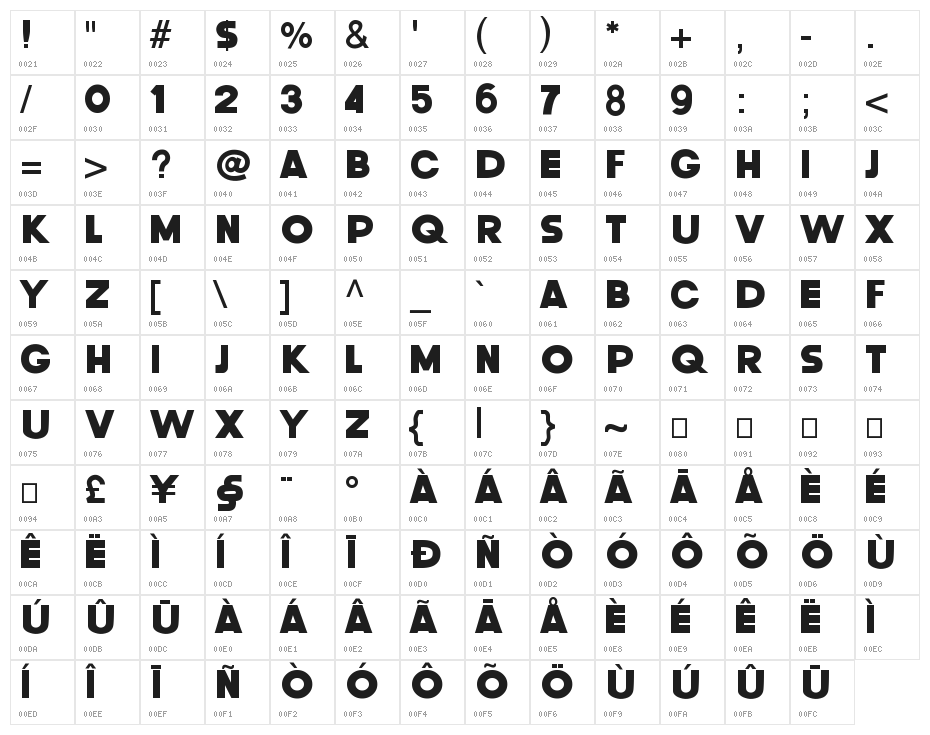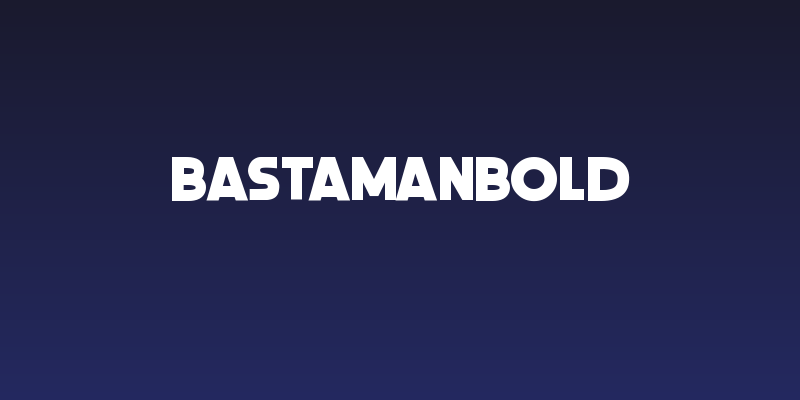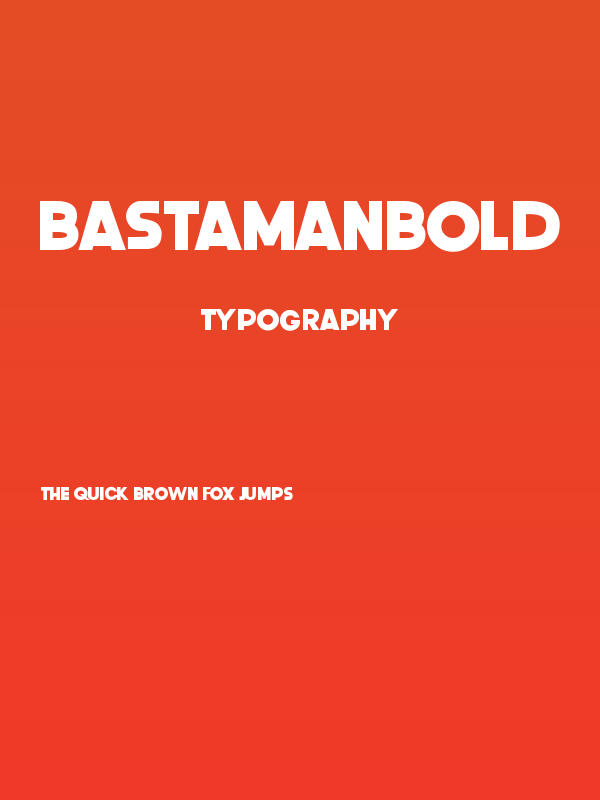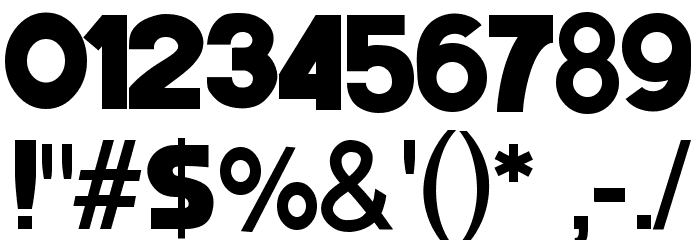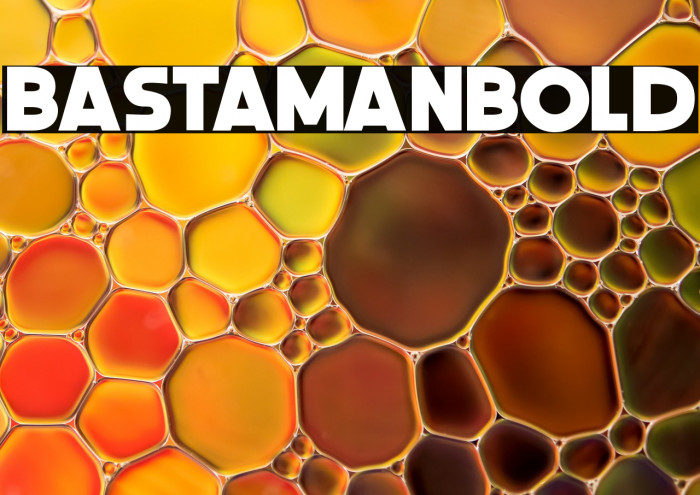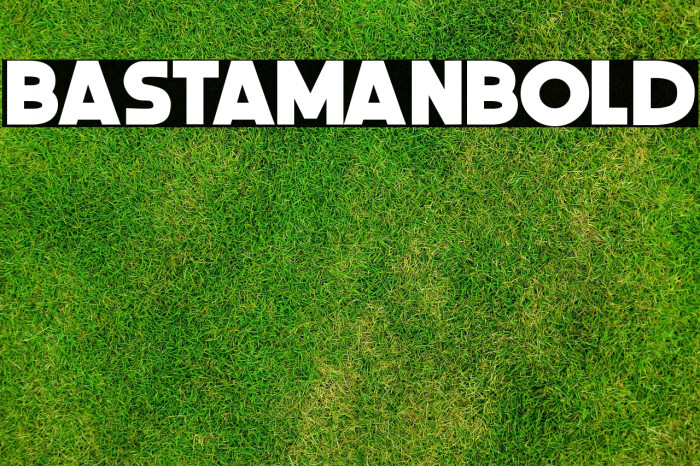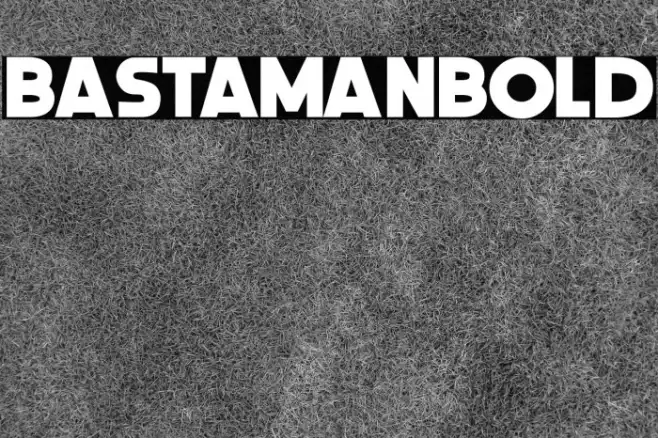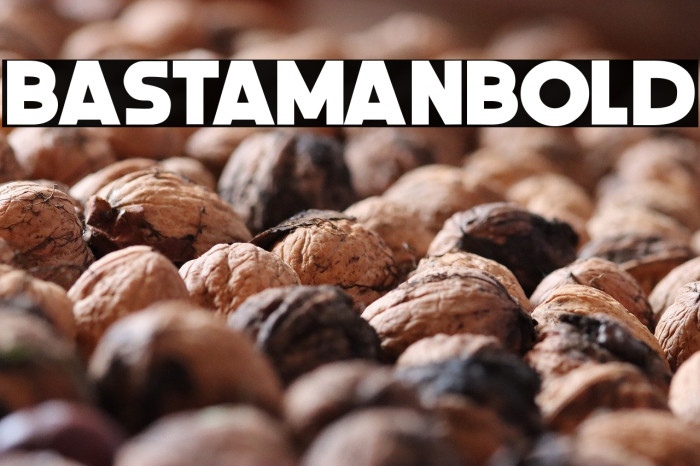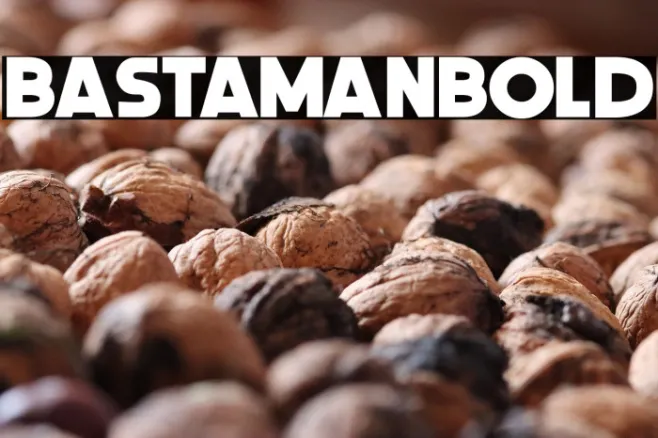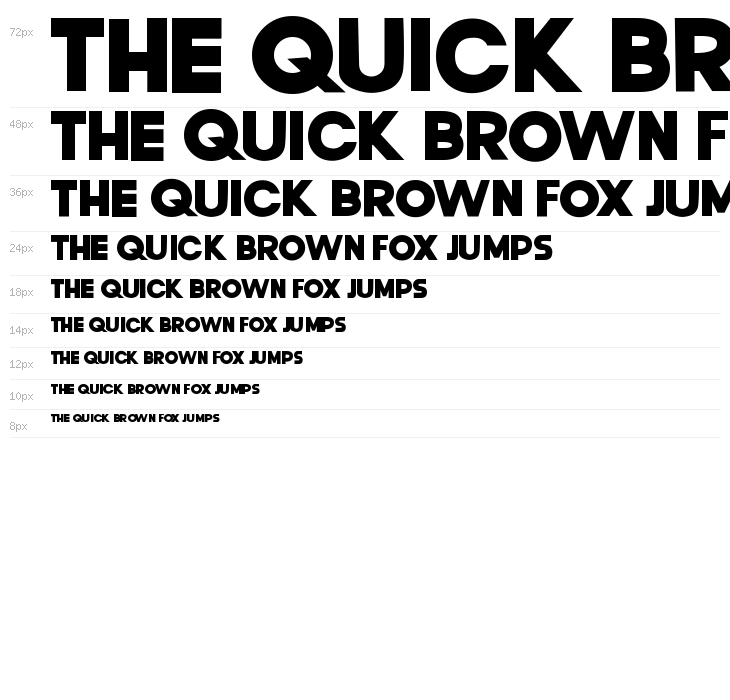
BastamanBold Font
BastamanBold Description
This font is a bold and impactful sans-serif typeface that exudes strength and modernity. The characters are uniformly thick, providing a strong visual presence. The uppercase letters are particularly striking, with a geometric and clean design that ensures readability even at smaller sizes. The numbers are equally bold, maintaining the same thickness and clarity as the letters. Special characters are well-integrated, matching the overall aesthetic of the font. This typeface is ideal for making a statement, with its bold lines and clear structure.
| Proposed Projects | Ideal for headlines, posters, branding, and any project requiring a strong visual impact. |